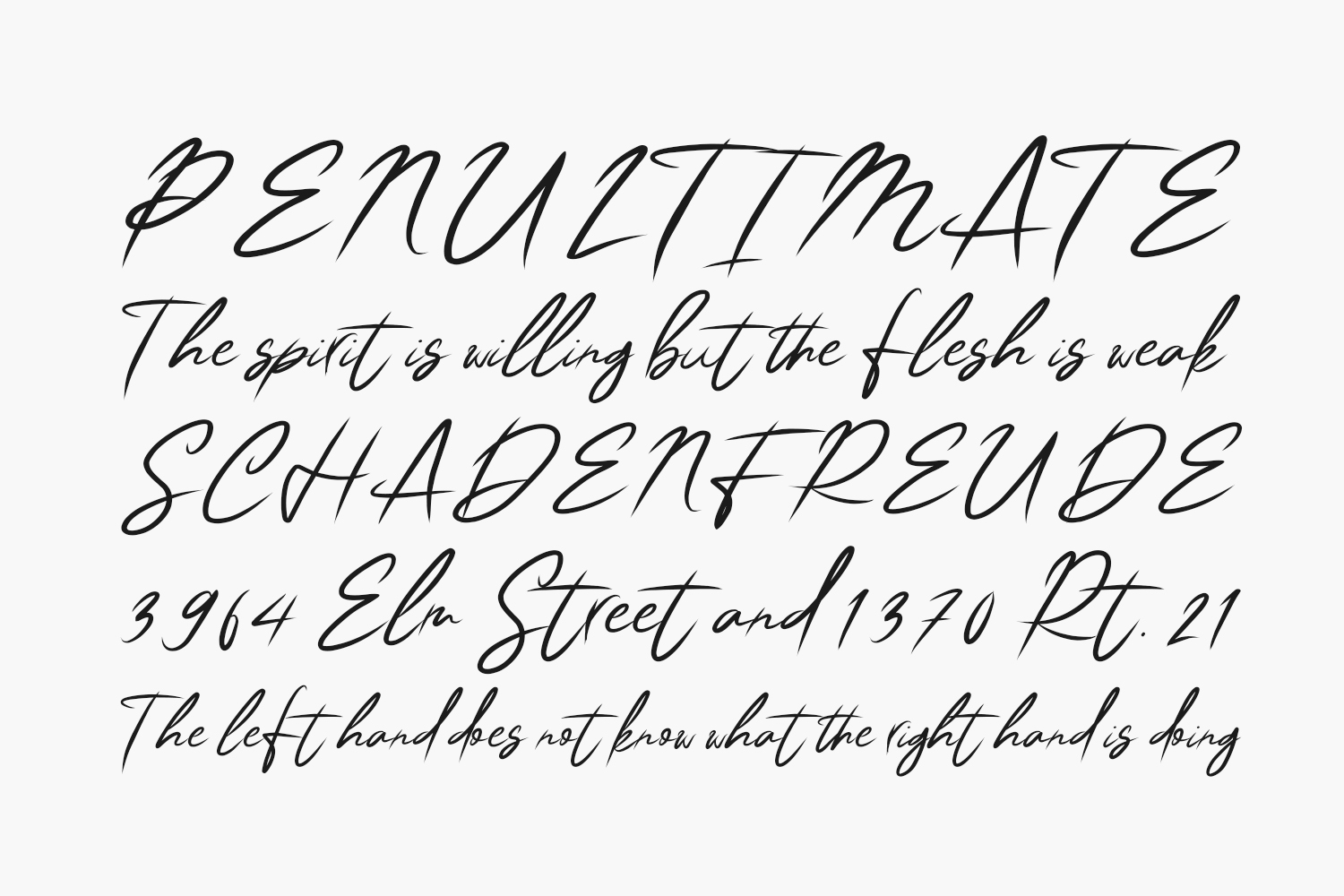
Classic Signature Free Font is a delicate and fashionable script font. It is perfect for any branding project such as logos, t-shirt printing, creative products, and more. Classic Signature Free Font is free for personal use only. Please purchase the full version for commercial use.
Designed by Elbanadha Creative